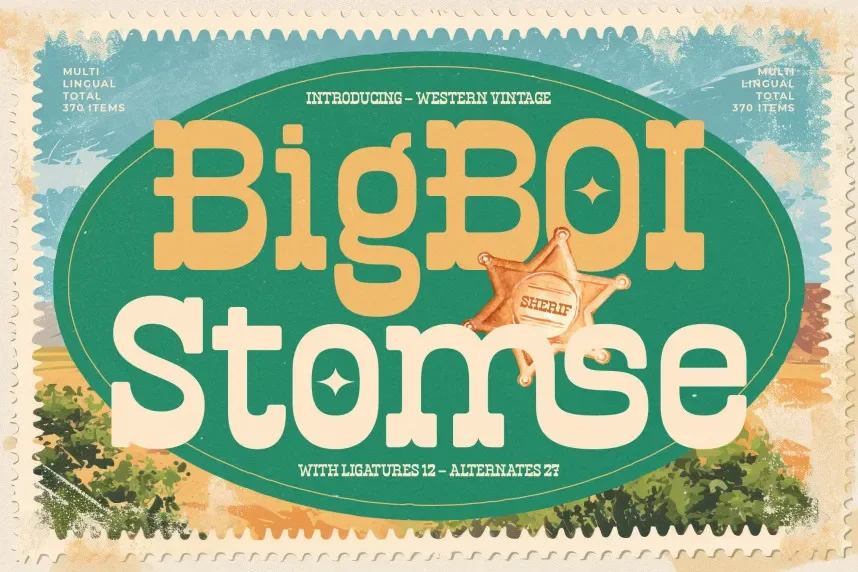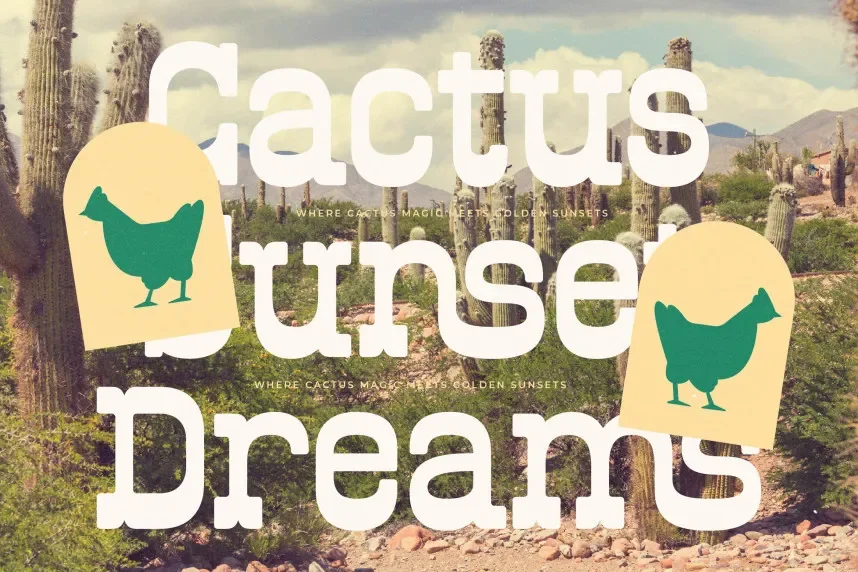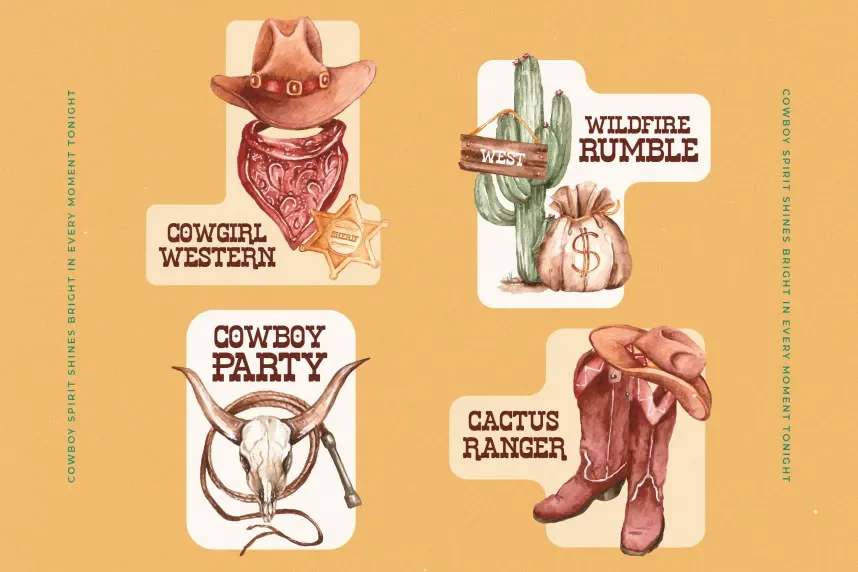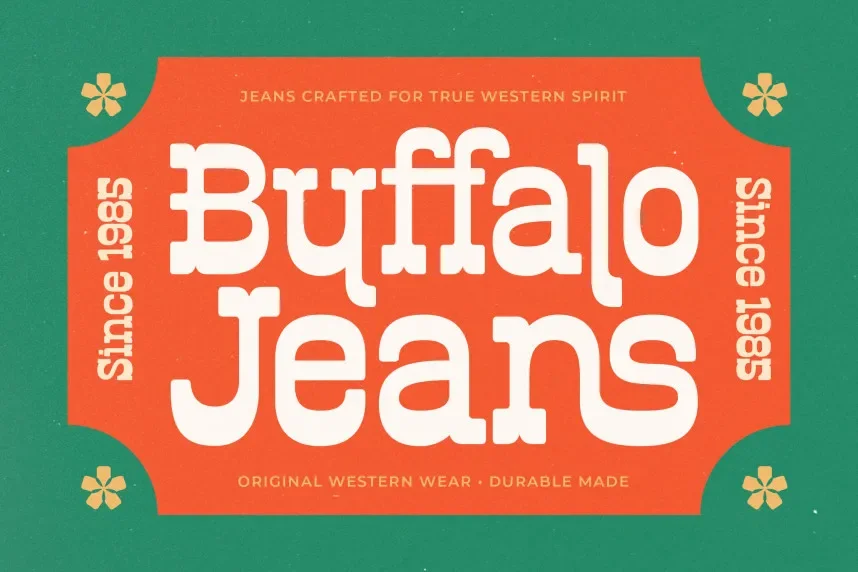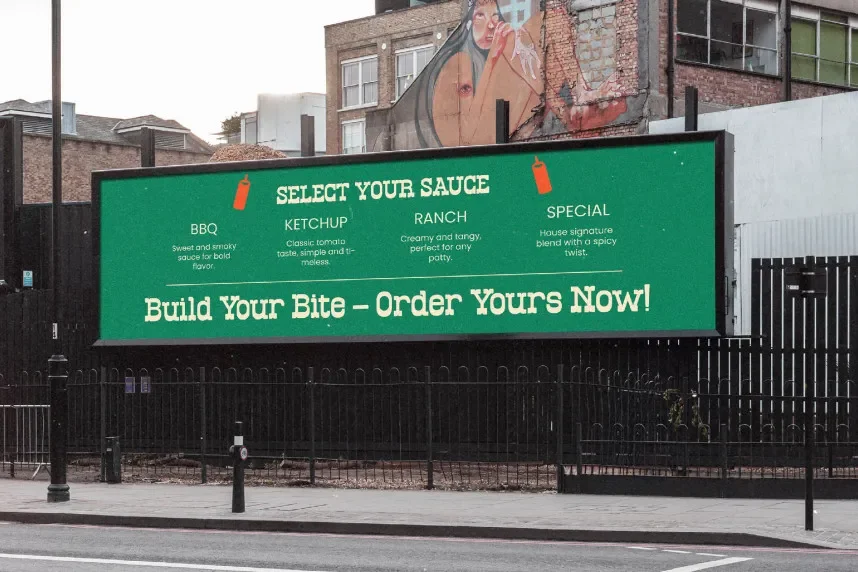
Bigboi Stomse Font is a western-inspired vintage display typeface designed for bold thematic branding. Designers often need fonts that reflect heritage styles while remaining readable. Bigboi Stomse achieves this through structured letterforms.
This font belongs to the vintage display category. Its letterforms feature heavy strokes, slab-style details, and strong vertical alignment. The font performs well in logos and large headings.
Bigboi Stomse works well for logos, posters, event signage, merchandise, and western-themed branding. Designers usually pair it with a simple sans-serif for supporting text.